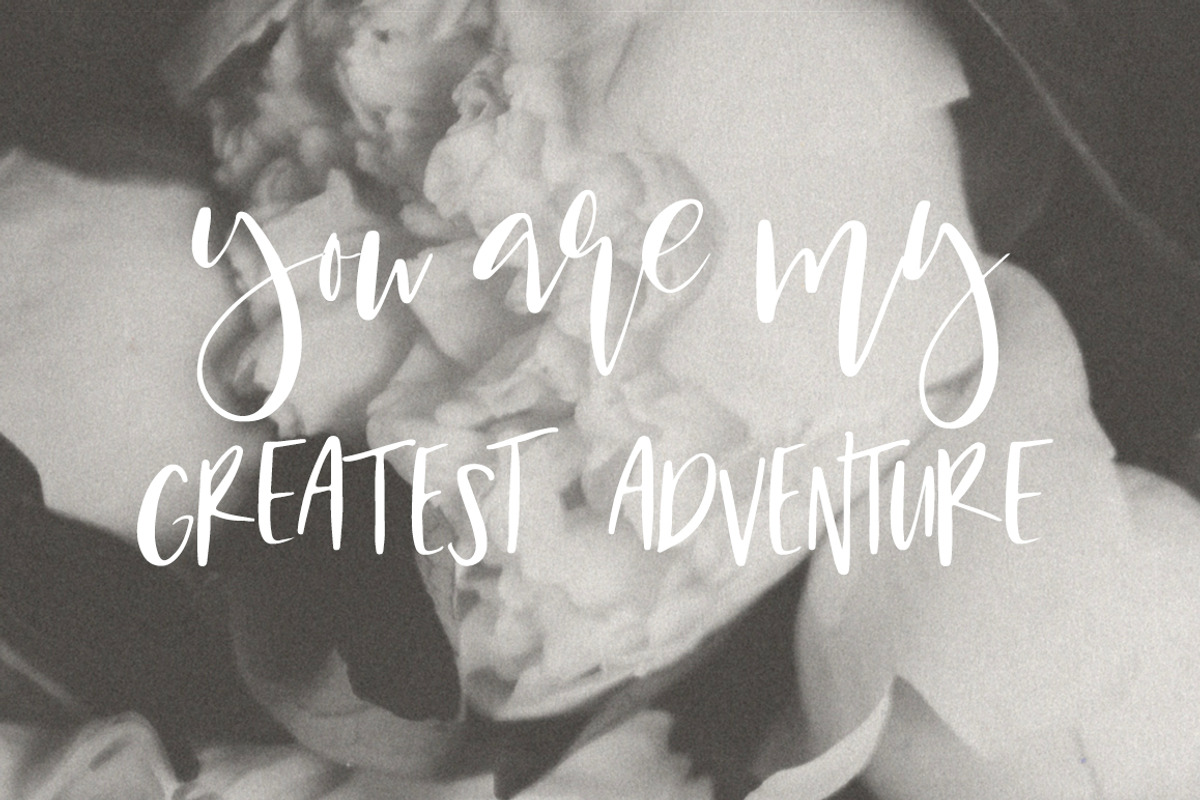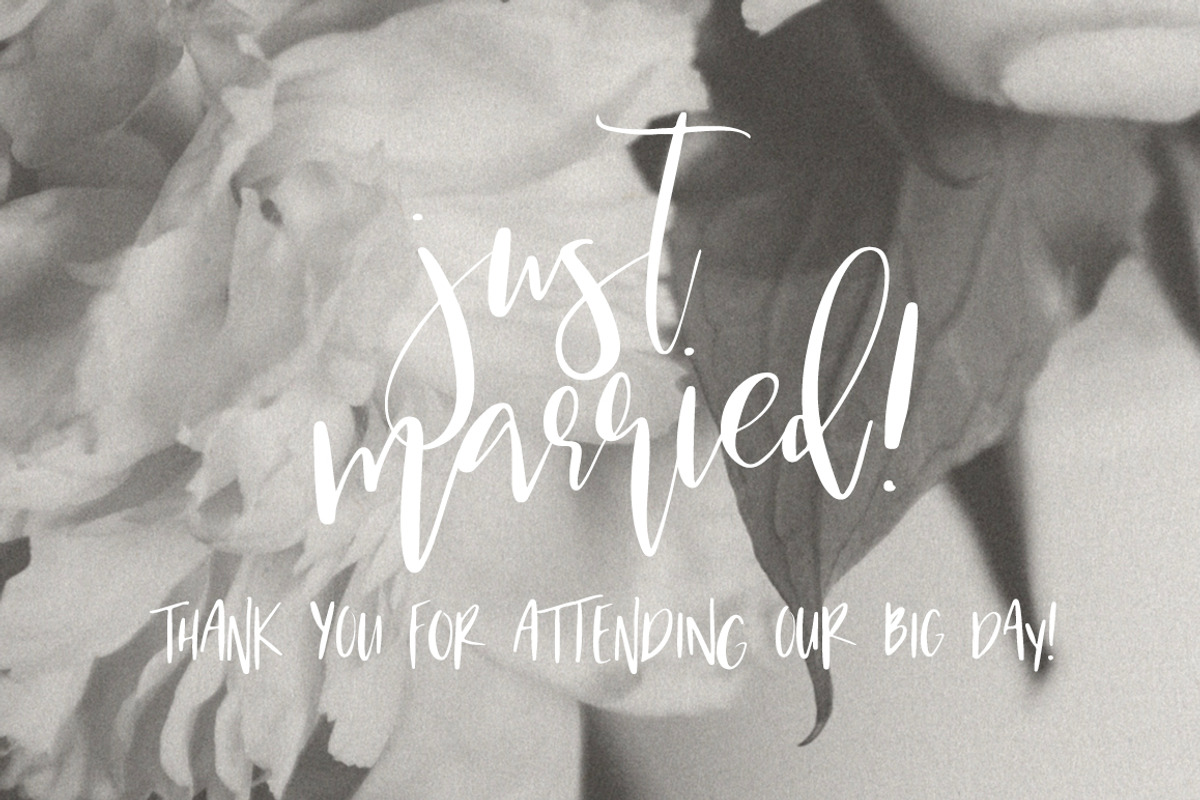
Brisbane | A Scripty Font Duo
Brisbane | A Scripty Font Duo by Jen Wagner Co is a font selected for branding, posters, packaging, typography.
- Includes Brisbane Script (an all-lowercase script with alternates via uppercase letters) Brisbane Regular (an all-uppercase script with alte
Why Brisbane | A Scripty Font Duo is worth a look
Brisbane | A Scripty Font Duo by Jen Wagner Co fits naturally into Branding, posters, packaging, typography.